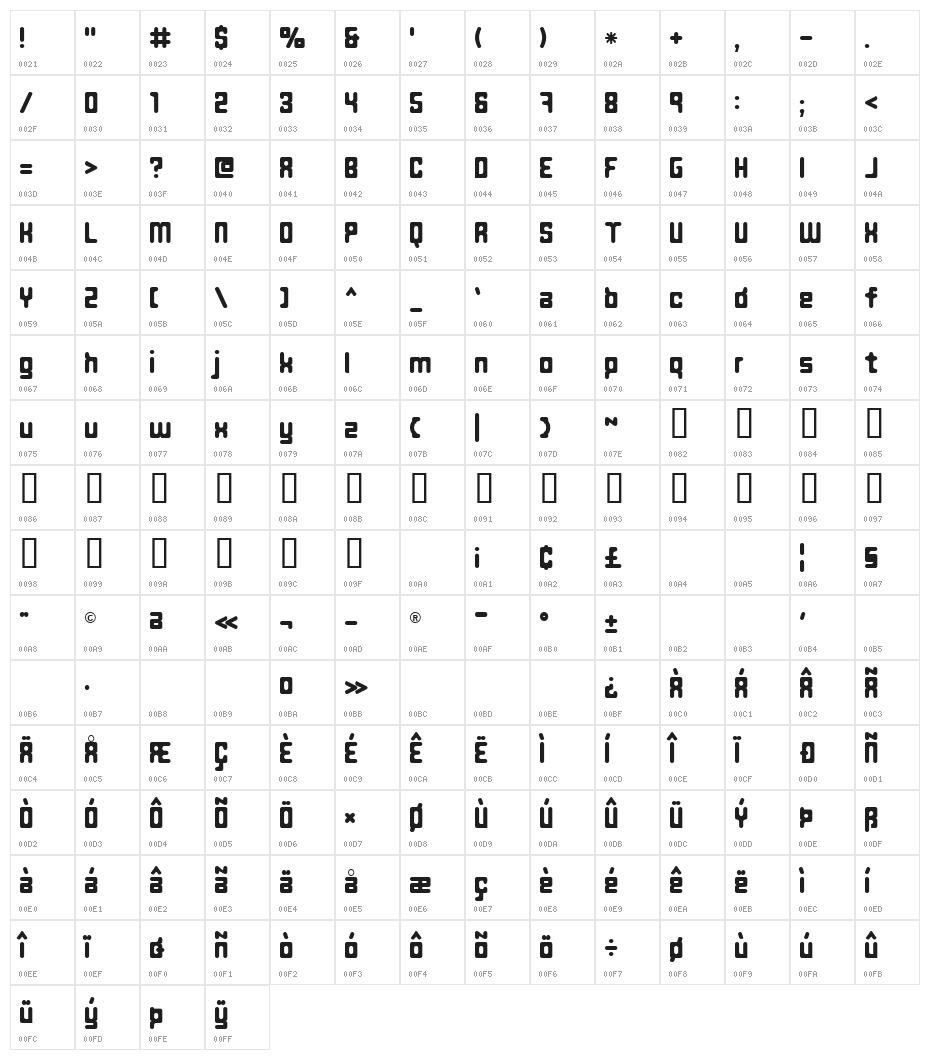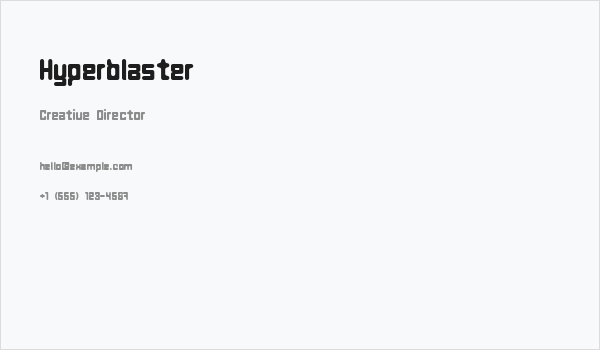
Hyperblaster Font
Hyperblaster Description
This font features a bold, rounded style with a futuristic and playful aesthetic. The characters are uniformly thick, giving a strong presence and a modern feel. The rounded edges soften the overall look, making it approachable and friendly. The uppercase and lowercase letters maintain a consistent width, contributing to a cohesive appearance. The numbers and special characters follow the same design principles, ensuring uniformity across all glyphs. This font is ideal for projects that require a contemporary and dynamic look, such as tech-related branding, gaming interfaces, or modern advertising.
| Proposed Projects | Tech branding, gaming interfaces, modern advertising, and playful product packaging. |